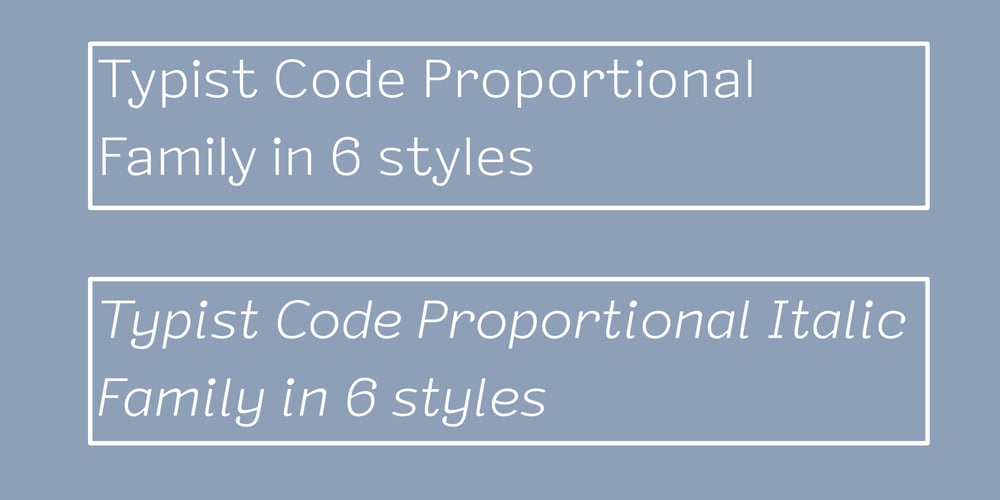
Typist Code Prop Font Family was designed by Nicolien van der Keur and published by VanderKeur. Typist Code Prop contains 12 styles and family package options. The Typist Code SansSerif is part of a big family, the Typist Family. The family consists of a monospaced, a Slab Serif and a SansSerif version. The idea behind this family originated from the research into the design of typewriter typestyles, which is also the reason why the monospaced version was released first. Since it was decided from the start to make a SlabSerif and a SansSerif version of these monospaced fonts, it was also a logical consequence that the proportional variants also became available in these versions. The monospaced SansSerif fonts have been given the name ‘Code’ since they are designed to be used while writing code for a software program, for example. The proportional variants with each 6 weights of the Typist Slab Serif and Code (SansSerif) are now available. Although the name may seem a bit strange, it is a logical consequence from the monospaced variant. The SansSerif variant therefore has Typist Code Prop, written in full the Typist Code Proportional. After all, who wants to be bothered with long font names in their font menu. The entire Typist family is designed as a font for use in editorial and publishing publications. A lot of attention has been paid to the spacing and kerning of the fonts. Due to the many variants and weights, this font is versatile.Typist Font Family was designed by Nicolien van der Keur and published by vanderKeur design. Typist Slab Prop and Typist Code Prop contains each 6 styles (Thin, Light, Regular, Medium, Semi-Bold and Bold, each weight also designed as a true italic) and has family package options.The links to the monospaced version of The Typist are here:https://www.myfonts.com/collections/typistslabfont-vanderkeurhttps://www.myfonts.com/collections/typist-code-font-vanderkeur